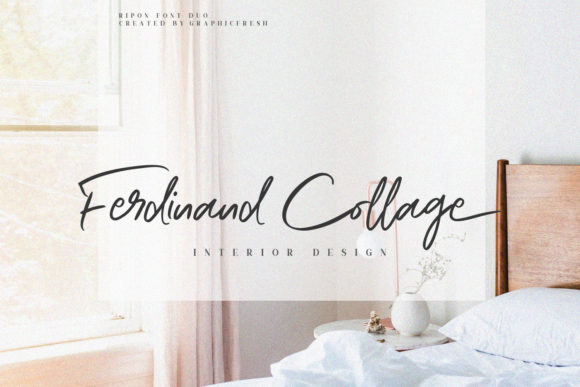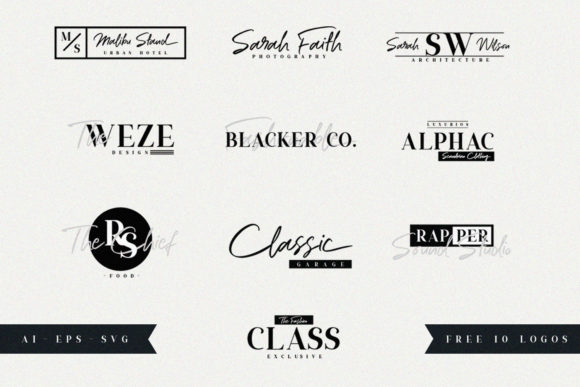
About Ripon Duo Font
The Ripon is an amazing font duo. It comes in a serif and script style, which can be combined perfectly and will add a classy look to your designs.
It’s perfect for wedding invites, logo designs, book covers, stationery, marketing, magazines, inspirational quotes and much more.